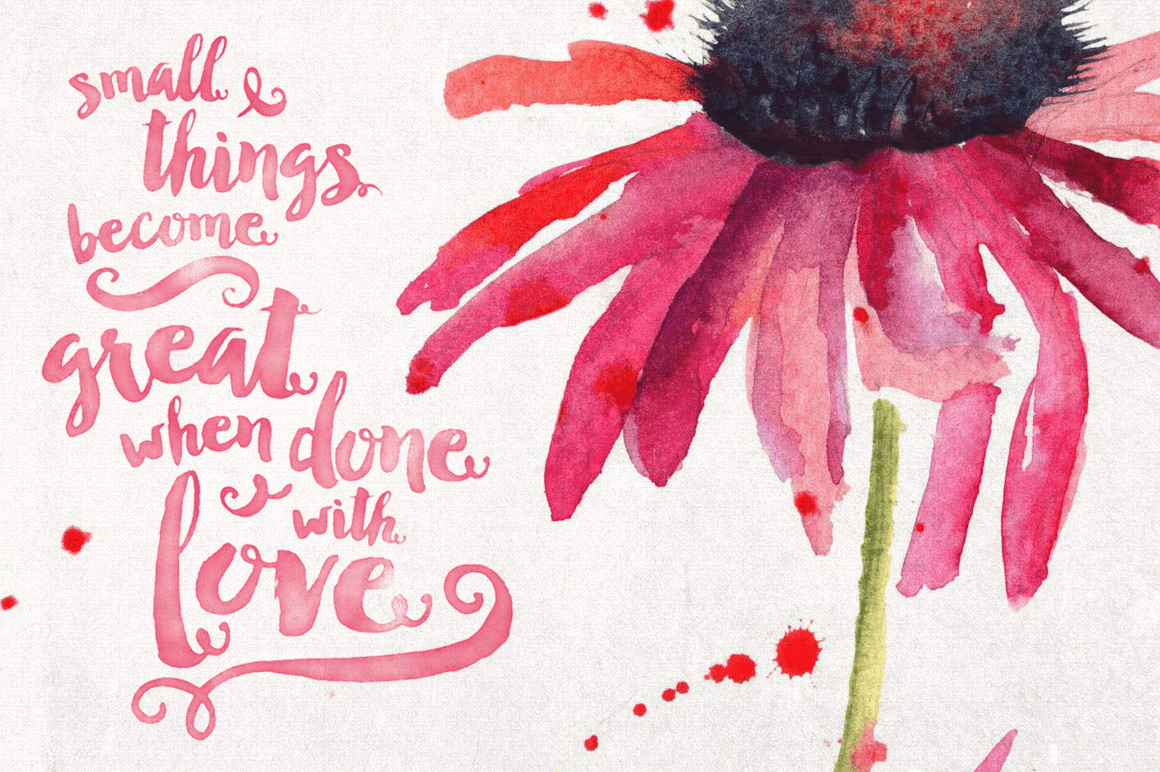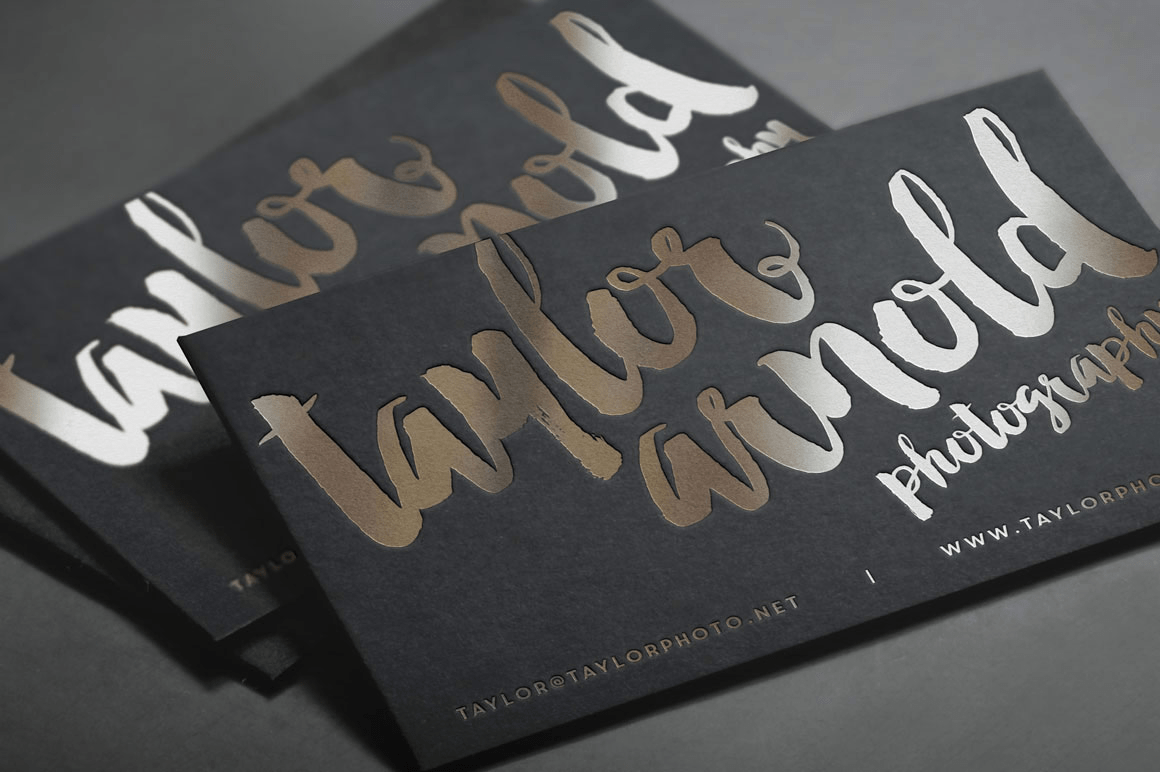
Manhattan Darling Typeface
Manhattan Darling Typeface was created as a dual-purpose font, with gritty, imperfect, hand-painted characters and an irregular baseline. Use the uppercase portion (Manhattan) to create a bold, organic hand-painted typography (see wine bottle preview), or use the lowercase portion (Darling) for beautiful branding, logo designs, invitations, wedding elements, etc. (see business card preview).
NOTE: The end characters are just that, ENDS. They won't work in the middle of words. Kapish?